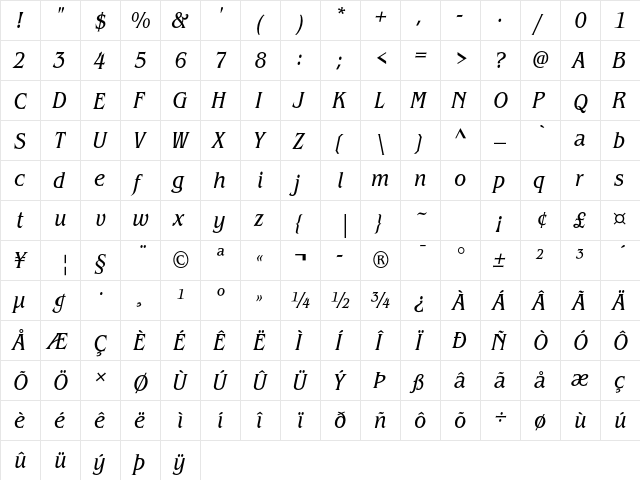
ITC Benguiat Std Book Italic Condensed Font Preview
| Style | Book Italic Condensed |
| Designer | Edward Benguiat |
Design Context for ITC Benguiat Std Typeface
ITC Benguiat Std offers clean, dependable letterforms without strong stylistic allegiance, making it a practical choice for designers who need flexibility. The dynamic lean of this cut emphasises speed and emphasis in any layout. The condensed width makes it efficient for tight spaces without sacrificing legibility.